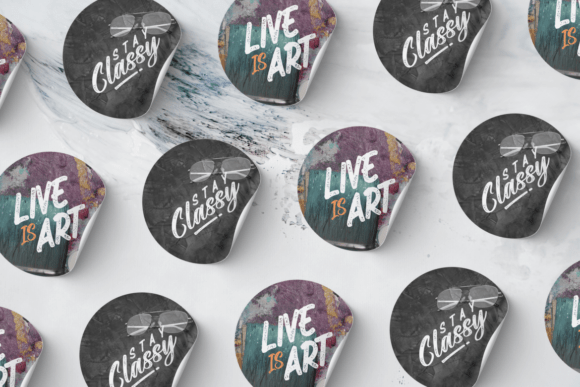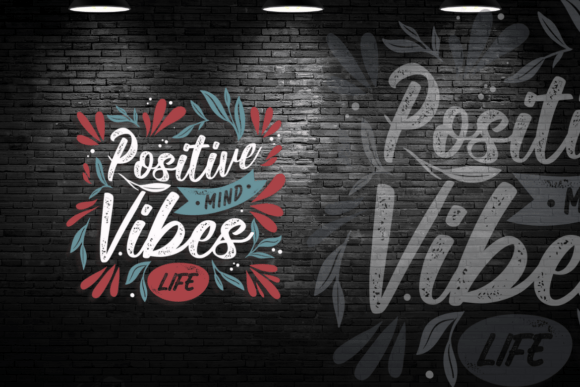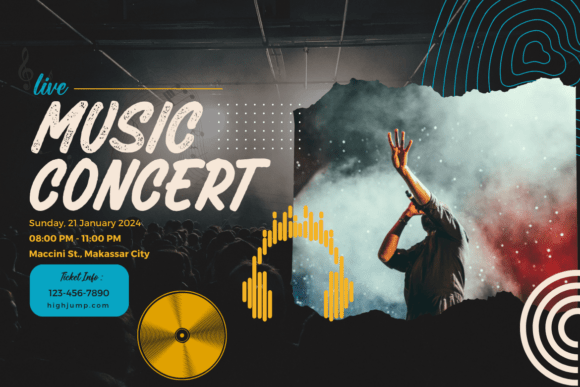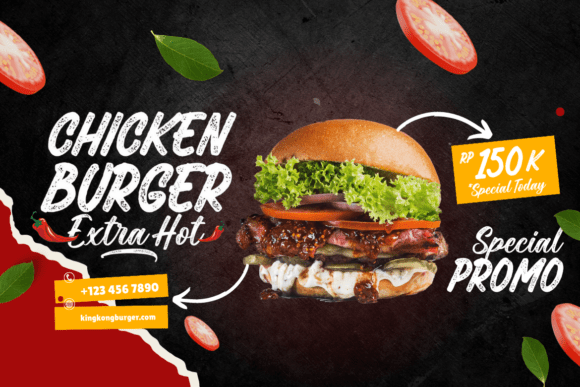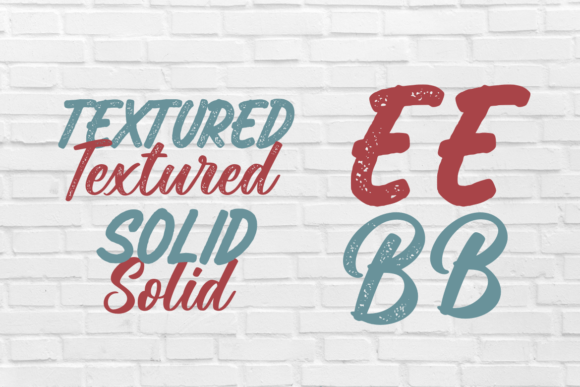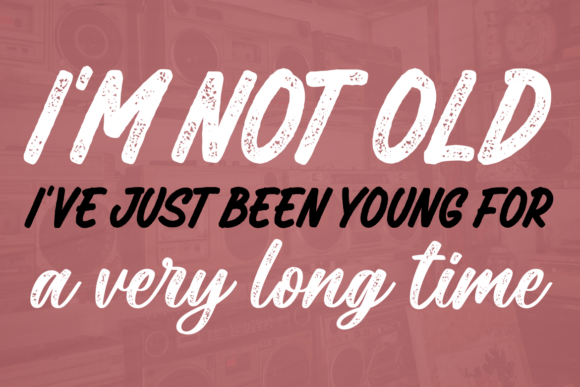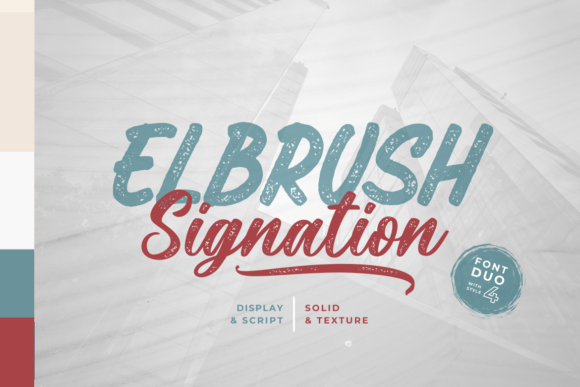
Introducing Elbrush Signation Duo Font: Elevate Your Designs with Versatility and Style
In the world of design, typography plays a crucial role in conveying messages, expressing creativity, and capturing the essence of a brand. For designers and crafters seeking a font that combines versatility, style, and functionality, Elbrush Signation Duo Font is an exceptional choice. This comprehensive font duo offers a textured and a solid version, catering to a wide range of design needs, from elegant logos to stunning packaging.
Unleash Creativity with a Versatile Font Duo
Elbrush Signation Duo Font is not just a font; it’s a design companion that understands the needs of modern designers. The duo consists of two complementary fonts:
- Textured Version: Adds a unique touch to your designs with its textured appearance, perfect for creating eye-catching headlines, logos, and titles that stand out.
- Solid Version: Offers a clean and crisp look, ideal for designs that require clarity and precision, such as business cards, brochures, and digital media.
This versatility allows designers to use one or both fonts in various projects, ensuring consistency and uniqueness in their creations.
Multilingual Support for Global Reach
In today’s globalized world, designs often need to communicate across different languages and cultures. Elbrush Signation Duo Font addresses this need with its extensive multilingual support. Whether you’re designing for an international audience or targeting a specific linguistic group, this font ensures that your message is conveyed effectively and beautifully.
Ideal for Distinctive and Memorable Typography
Creating distinctive and memorable typography is at the heart of every design project. Elbrush Signation Duo Font, with its elegant and stylish appearance, helps designers achieve this goal. Here are some ways it can elevate your designs:
- Fancy Logos: The textured version of the font is perfect for crafting unique and luxurious logos that leave a lasting impression.
- Stunning Packaging: The solid version offers a professional look that’s ideal for product packaging, ensuring your brand stands out on store shelves.
- Digital and Print Media: Its versatility extends to digital platforms and print media, making it a go-to font for cohesive branding across all channels.
Why Choose Elbrush Signation Duo Font?
When it comes to selecting a font for your design projects, several factors come into play. Here are some reasons why Elbrush Signation Duo Font should be at the top of your list:
- Quality and Uniqueness: Offers high-quality, unique designs that set your work apart from the ordinary.
- Flexibility: Suitable for a wide range of projects, from branding and advertising to personal crafts and DIY projects.
- Multilingual Support: Ensures your designs can communicate effectively with a global audience.
- Easy to Use: Designed to be user-friendly, making it accessible for designers of all skill levels.
Elbrush Signation Duo Font is a powerful tool for designers and crafters looking to elevate their typography and create memorable designs. With its versatile duo of textured and solid versions, along with extensive multilingual support, it offers the flexibility and style needed to meet a variety of design challenges. Whether you’re crafting a fancy logo, designing stunning packaging, or working on digital and print media, Elbrush Signation is your partner in creating distinctive and impactful typography.
Embrace the world of limitless design possibilities with Elbrush Signation Duo Font. Let your creativity shine, and make your designs speak volumes with this exceptional font duo.